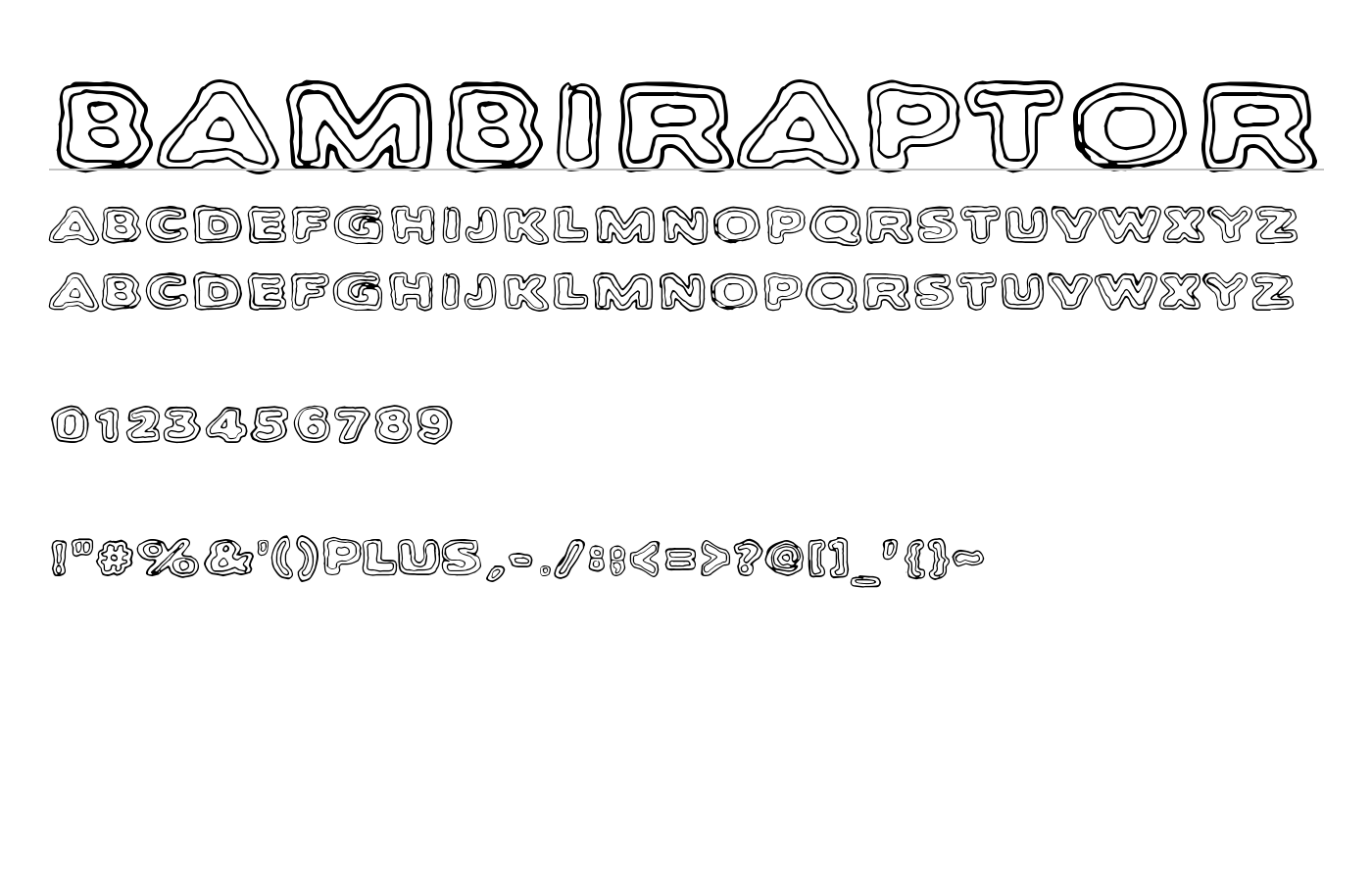
Bambiraptor is a playful and bold display font with a fun, hand-drawn outline style that gives it a lively, organic feel. Its chunky, irregular shapes and whimsical contours make it perfect for eye-catching headlines, children's projects, and creative branding that wants to convey energy and a casual, friendly vibe. This font works especially well where a distinctive, informal look is needed to grab attention and bring a sense of fun.
Bambiraptor Font
About Bambiraptor Font